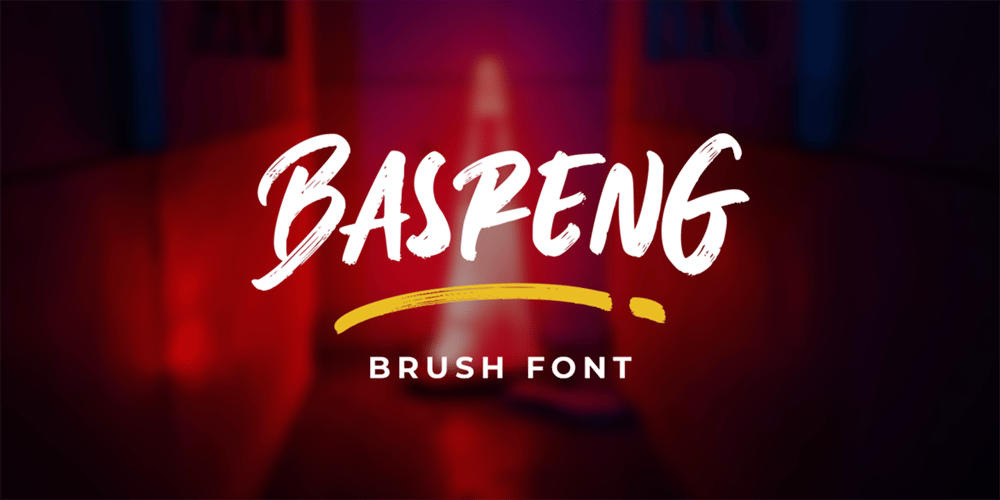
Basreng Font Family was designed by Winarno and published by Bluestudio. Basreng contains 1 styles and family package options. Basreng is our newest font brush. Basreng fonts are suitable for today’s projects such as clothing, covers, watermarks, web design, posters, branding. Basreng also comes with an underscore sweep bonus which can be perfectly matched. Just do it with your own creativity, Basreng is an easy to use font, will make your project easier.